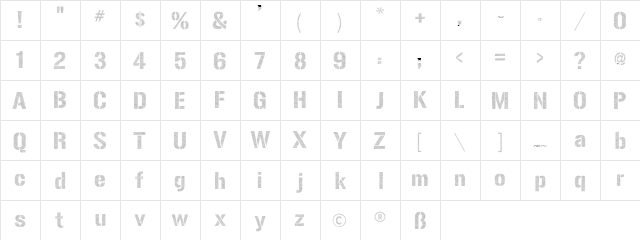
Urban Sketch Regular
| Foundry | Nils von Blanc |
| Designer | Nils von Blanc |
Design Context for Urban Sketch Typeface
Urban Sketch takes a measured approach to typography — its balanced proportions and neutral character make it a reliable workhorse for both digital and print work.